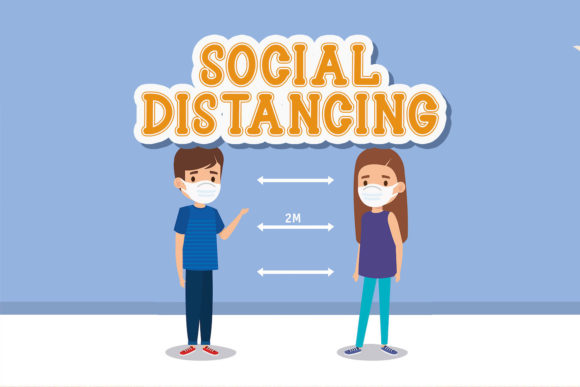
Schoolkid Font
Schoolkid is a playful and cool display font. Whether you use it for cartoon related designs, children games or just any creation that requires a lovely touch, this font will be an amazing choice.